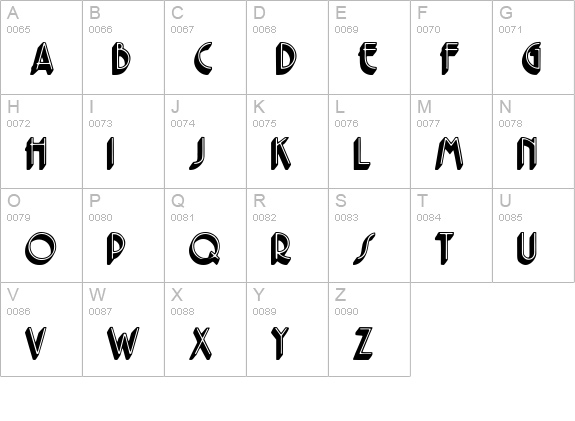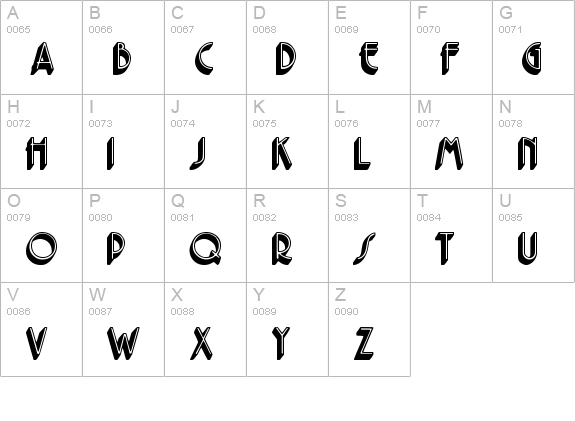
Ferio Display Caps SSi Font Details
Ferio Display Caps SSi font exudes elegance and sophistication with its sleek and modern design. This stylish typeface is perfect for creating eye-catching headlines, titles, and branding materials that demand attention. Its sharp lines and carefully crafted letterforms make it a standout choice for any design project. What makes Ferio Display Caps SSi font even more appealing is that it is available for free download at FontsMarket.com. This means you can easily access this versatile and striking font without any cost, making it a valuable addition to your font library. Whether you're working on a poster, logo, website, or any other creative project, Ferio Display Caps SSi font is sure to elevate your design and leave a lasting impression. Don't miss out on the opportunity to enhance your work with this exceptional font that combines sophistication and modernity. Download Ferio Display Caps SSi font for free today and bring a touch of refined style to your next design endeavor.